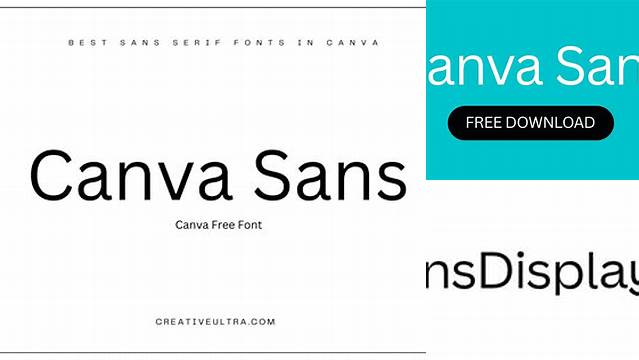
Hey guys! Are you on the hunt for that perfect font to give your designs a clean and modern look? Look no further! In this article, we're diving deep into the Canva Sans Regular font – where to find it, how to download it for free in TTF format, and how to use it to make your projects shine. We'll cover everything from its characteristics to its best uses, so you'll be a Canva Sans pro in no time! Let's get started!
What is Canva Sans Regular?
Canva Sans Regular is a versatile and modern sans-serif font that's become super popular, especially among designers who love the Canva platform. The Canva Sans Regular font is known for its clean lines, excellent readability, and overall contemporary feel. It’s a go-to choice for everything from body text to headings, making it a true workhorse in the font world. Canva Sans Regular offers a neutral yet friendly appearance, which makes it incredibly adaptable to various design styles and projects. When you think of a font that is both professional and approachable, Canva Sans Regular should definitely come to mind. You'll often see it in branding materials, websites, presentations, and even social media graphics because of its versatility. It's designed to be legible across different sizes and resolutions, ensuring your message comes across clearly whether it’s on a business card or a large display screen. In essence, Canva Sans Regular is more than just a font; it’s a design asset that can significantly elevate the look and feel of your visual content. Its balanced design ensures it pairs well with a wide array of other fonts, giving you even more creative flexibility. So, whether you are designing a sleek corporate report or an engaging Instagram post, Canva Sans Regular is a fantastic choice to have in your toolkit. The font’s simplicity is its strength, offering a timeless appeal that won’t go out of style anytime soon. This makes it a reliable option for long-term projects where consistency and clarity are paramount. Plus, its availability in various weights (though we are focusing on Regular today) means you can maintain a cohesive look throughout your designs while still adding subtle variations where needed.
Why Choose Canva Sans Regular?
Choosing the right font is crucial, and Canva Sans Regular offers a ton of benefits. One of the main reasons to choose Canva Sans Regular is its readability. It’s designed to be clear and easy on the eyes, which means your audience can focus on your message rather than struggling to decipher the text. This is especially important for body text and longer paragraphs, where readability can make or break the user experience. Beyond readability, Canva Sans Regular boasts impressive versatility. It works equally well in headings and body text, making it a fantastic option for projects where you want a consistent look throughout. Whether you’re designing a website, a presentation, or a printed brochure, this font can handle it all. Its clean, modern aesthetic makes it suitable for a wide range of industries and applications. From tech startups to creative agencies, Canva Sans Regular can help you convey a professional and contemporary image. Another key advantage is its availability. While we're focusing on the free TTF download, the font is readily accessible within the Canva platform, making it a convenient choice for users who create designs there. This seamless integration means you can quickly incorporate Canva Sans Regular into your projects without having to worry about compatibility issues or licensing restrictions. Moreover, Canva Sans Regular pairs well with many other fonts. Its neutral design means it can be easily combined with more decorative fonts for headings or accents, giving you plenty of creative freedom. Whether you prefer a classic serif font or a bold sans-serif, Canva Sans Regular can complement your choices beautifully. This versatility extends to different design styles as well. Whether you’re going for a minimalist look or a more vibrant and colorful design, Canva Sans Regular can fit right in. It’s a font that adapts to your vision, rather than forcing you to adapt to it. And let's not forget the professional impression it makes. Using a well-designed font like Canva Sans Regular can instantly elevate the perceived quality of your work. It communicates attention to detail and a commitment to clear communication, which can be invaluable in building trust with your audience. In a world where visual communication is paramount, choosing the right font is a strategic decision. Canva Sans Regular offers a compelling combination of readability, versatility, and professional appeal, making it a smart choice for any design project. So, if you’re looking for a font that can do it all, this one’s definitely worth considering.
Using Canva Sans Regular in Your Designs
Alright, you've downloaded and installed Canva Sans Regular – now it's time to put it to work! This font is incredibly versatile, making it a fantastic choice for a wide range of design projects. Let's dive into some ways you can effectively use Canva Sans Regular to elevate your designs. One of the primary uses for Canva Sans Regular is in body text. Its excellent readability makes it perfect for longer paragraphs and articles. When you’re crafting content that needs to be easily digestible, this font is your best friend. Its clean lines and balanced letterforms ensure that readers can focus on your message without straining their eyes. Think about using it in blog posts, reports, or even website content where clarity is key. But don’t think Canva Sans Regular is just for body text! It also shines as a heading font. Its modern and approachable feel makes it a great choice for titles and subheadings. You can use it to create a consistent and professional look throughout your design. Try pairing it with a slightly bolder weight or a contrasting color to make your headings stand out. When it comes to branding, Canva Sans Regular can be a game-changer. If you’re looking for a font that conveys a sense of professionalism and modernity, this is it. Use it in your logo, website, and marketing materials to create a cohesive brand identity. Its versatility means it can adapt to a variety of industries, from tech startups to creative agencies. For web design, Canva Sans Regular is a fantastic option for user interfaces (UI) and user experiences (UX). Its readability ensures that your website visitors can easily navigate your site and read your content. Use it for menus, buttons, and other interactive elements to create a clean and user-friendly design. In presentations, Canva Sans Regular can help you deliver your message with clarity and impact. Use it for slide titles, bullet points, and body text to create a professional and engaging presentation. Its clean aesthetic ensures that your slides look polished and your message is easy to follow. When using Canva Sans Regular, consider pairing it with other fonts to add visual interest. It works well with both serif and sans-serif fonts, giving you plenty of creative freedom. Try pairing it with a classic serif font like Times New Roman or a bolder sans-serif font like Montserrat to create a balanced and visually appealing design. Remember, consistency is key in design. Using Canva Sans Regular throughout your project can help you create a cohesive and professional look. Whether you’re working on a website, a brochure, or a social media campaign, sticking to a consistent font family can elevate your design and strengthen your brand identity. So, go ahead and experiment with Canva Sans Regular in your designs. Its versatility and readability make it a valuable asset in any designer’s toolkit. With a little creativity, you can use it to create stunning visuals that communicate your message effectively.
Canva Sans Regular vs. Other Popular Fonts
Okay, let's talk about how Canva Sans Regular stacks up against some other popular fonts out there. It's always good to know your options and understand what makes each font unique. This will help you make the best choice for your specific design needs. First off, let’s compare Canva Sans Regular to Helvetica. Helvetica is a classic sans-serif font known for its clean, neutral appearance. It’s been a favorite among designers for decades. Canva Sans Regular shares some similarities with Helvetica in terms of its simplicity and readability, but it has a slightly more modern and approachable feel. Helvetica can sometimes come across as a bit cold or sterile, whereas Canva Sans Regular has a friendlier vibe. Next, let’s look at Arial. Arial is another widely used sans-serif font that’s often compared to Helvetica. It’s a standard font on many operating systems, making it a common choice for designers. Canva Sans Regular offers a similar level of readability to Arial but has a more refined and contemporary design. Arial can sometimes feel a bit generic, while Canva Sans Regular has a more distinct personality. Now, let’s consider Open Sans. Open Sans is a popular font from Google Fonts that’s known for its versatility and legibility. It’s a great choice for web design and body text. Canva Sans Regular is similar to Open Sans in many ways, but it has a slightly different character. Open Sans is designed to be highly legible on screens, and Canva Sans Regular shares this quality. However, Canva Sans Regular might be a bit more versatile in terms of its overall design applications. What about Montserrat? Montserrat is a geometric sans-serif font that’s become increasingly popular in recent years. It has a modern and stylish look that’s great for headings and branding. Canva Sans Regular is less geometric than Montserrat but offers a similar level of versatility. While Montserrat can be a bit more attention-grabbing, Canva Sans Regular provides a more understated and professional aesthetic. Then there’s Roboto, another Google Font that’s widely used for web and mobile design. Roboto has a dual nature – it’s both geometric and friendly, making it a versatile choice. Canva Sans Regular shares some of these qualities but has a more neutral tone. Roboto can sometimes feel a bit more techy, while Canva Sans Regular is a bit more balanced and adaptable. Ultimately, the best font for your project depends on your specific needs and preferences. Canva Sans Regular is a fantastic option if you’re looking for a font that’s clean, readable, and versatile. It’s a modern sans-serif font that can work well in a variety of design contexts. By comparing it to other popular fonts, you can get a better sense of its strengths and how it might fit into your overall design strategy. Remember to consider factors like readability, versatility, and the overall tone you want to convey when choosing a font. Each font has its own unique personality, and the right choice can make a big difference in the success of your design.
Best Uses for Canva Sans Regular Font
So, we've established that Canva Sans Regular is a versatile font, but where does it really shine? Let’s break down some of the best use cases for this font, so you can see exactly how it can elevate your projects. One of the top uses for Canva Sans Regular is in website design. Its clean and modern look makes it perfect for creating a professional and user-friendly online presence. Think about using it for your website's body text, headings, navigation menus, and call-to-action buttons. Its readability ensures that visitors can easily navigate your site and understand your content. In the world of branding, Canva Sans Regular can be a game-changer. If you're looking to create a brand identity that's both contemporary and approachable, this font is an excellent choice. Use it in your logo, business cards, letterheads, and other marketing materials to create a consistent and cohesive brand image. For presentations, Canva Sans Regular can help you deliver your message with clarity and impact. It’s a fantastic option for slide titles, bullet points, and body text. Its clean aesthetic ensures that your slides look polished and your message is easy to follow. Whether you're presenting in a corporate setting or a creative workshop, this font can help you make a strong impression. When it comes to marketing materials, Canva Sans Regular is a workhorse. Use it in brochures, flyers, posters, and social media graphics to create visually appealing and effective campaigns. Its versatility means it can adapt to a variety of design styles, from minimalist to vibrant. In editorial design, such as books and magazines, Canva Sans Regular can provide a clean and readable experience for your audience. Use it for body text, captions, and headlines to create a polished and professional publication. Its legibility makes it a great choice for longer texts, ensuring that readers can comfortably engage with your content. For digital documents like reports and ebooks, Canva Sans Regular is an excellent option. Its clarity and readability make it easy for readers to digest complex information. Use it for headings, subheadings, and body text to create a professional and accessible document. In mobile applications, readability is crucial. Canva Sans Regular is a great choice for app interfaces, as it ensures that text is clear and easy to read on smaller screens. Use it for menu items, labels, and other UI elements to create a user-friendly experience. When designing resumes and cover letters, making a professional impression is key. Canva Sans Regular can help you achieve this with its clean and modern aesthetic. Use it for headings and body text to create a polished and easy-to-read document. In social media graphics, Canva Sans Regular can help you create visually appealing content that grabs attention. Use it for text overlays, captions, and other design elements to create a cohesive and engaging social media presence. These are just a few examples of how you can use Canva Sans Regular in your projects. Its versatility and readability make it a valuable asset in any designer's toolkit. So, go ahead and explore the possibilities – you might be surprised at just how many ways this font can enhance your work!
Pairing Canva Sans Regular with Other Fonts
Alright, let's dive into the fun part – pairing Canva Sans Regular with other fonts! Choosing the right font combinations can really take your designs to the next level, so let’s explore some fantastic pairings that will make your projects shine. One of the classic and foolproof pairings is Canva Sans Regular with a serif font. Serif fonts have those little